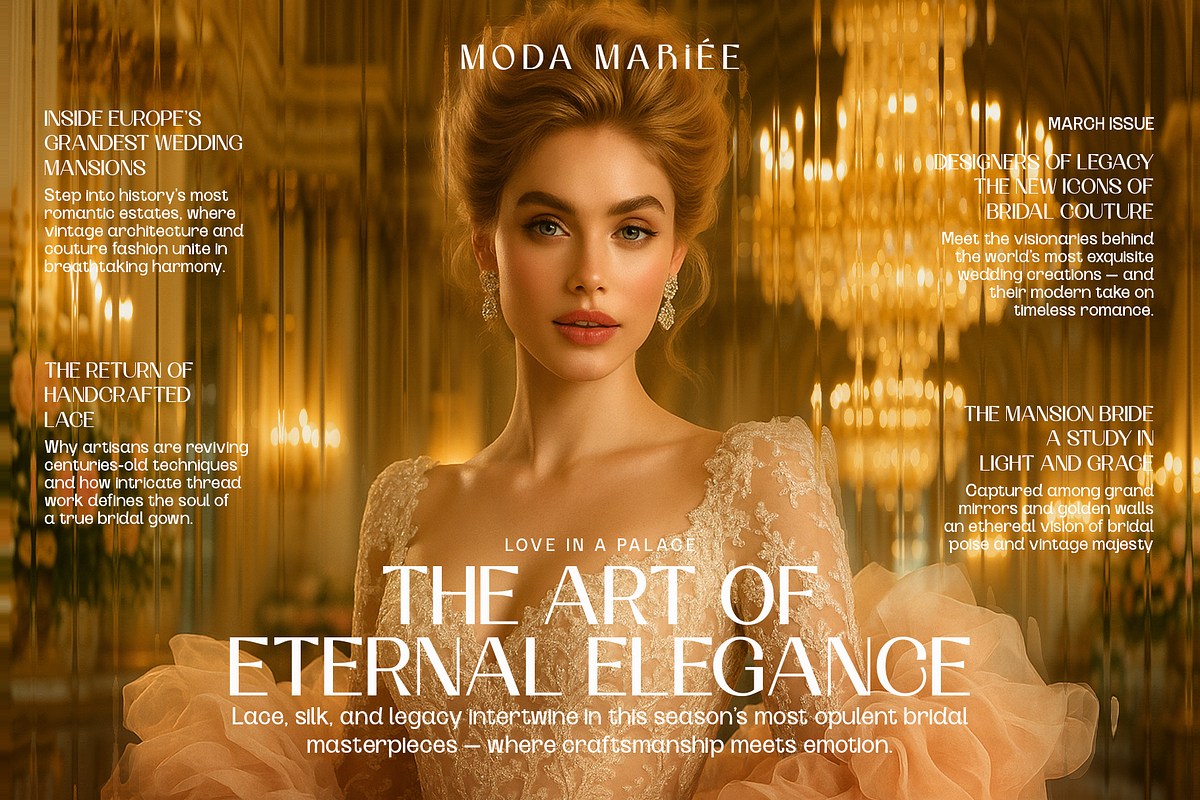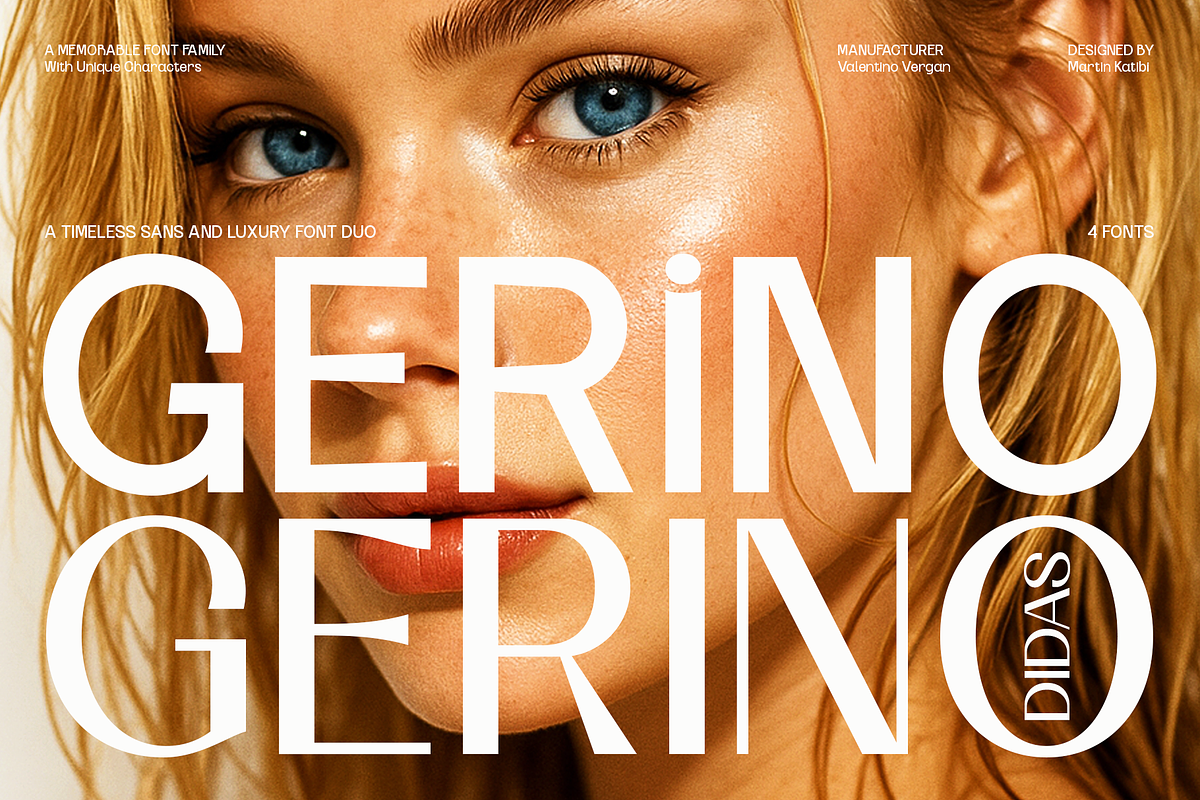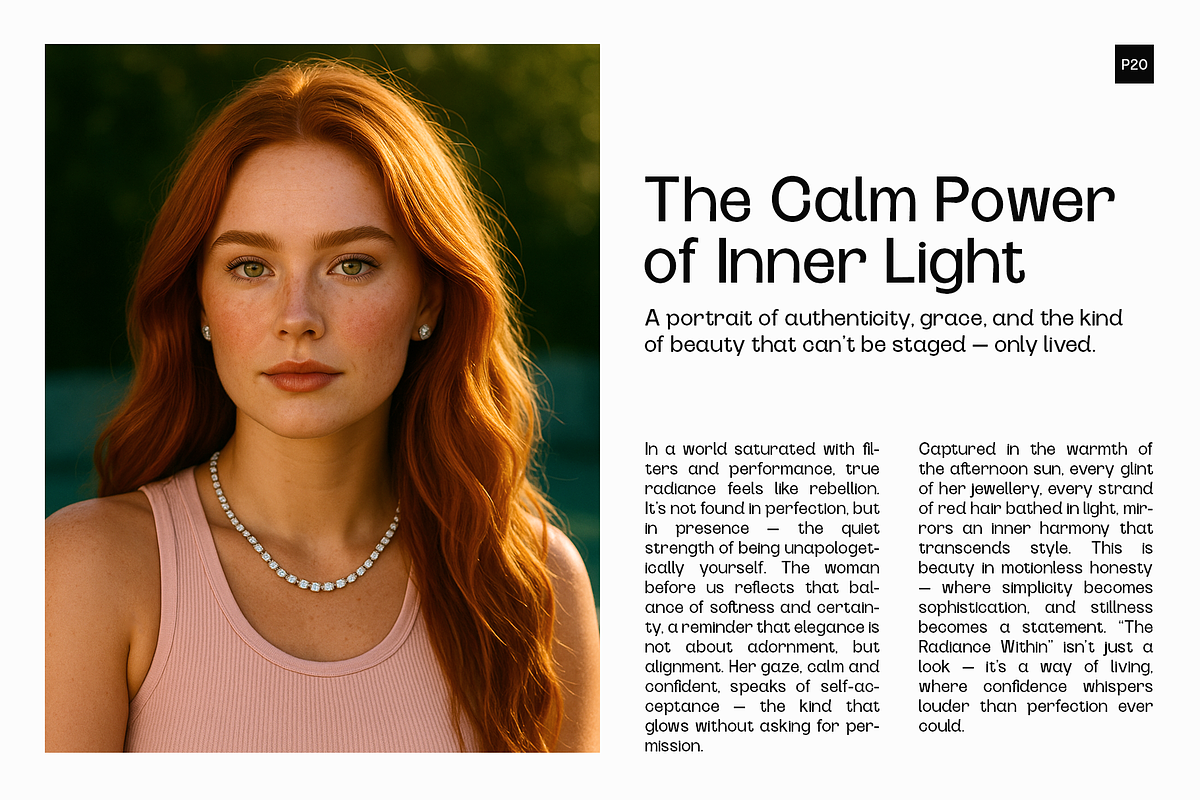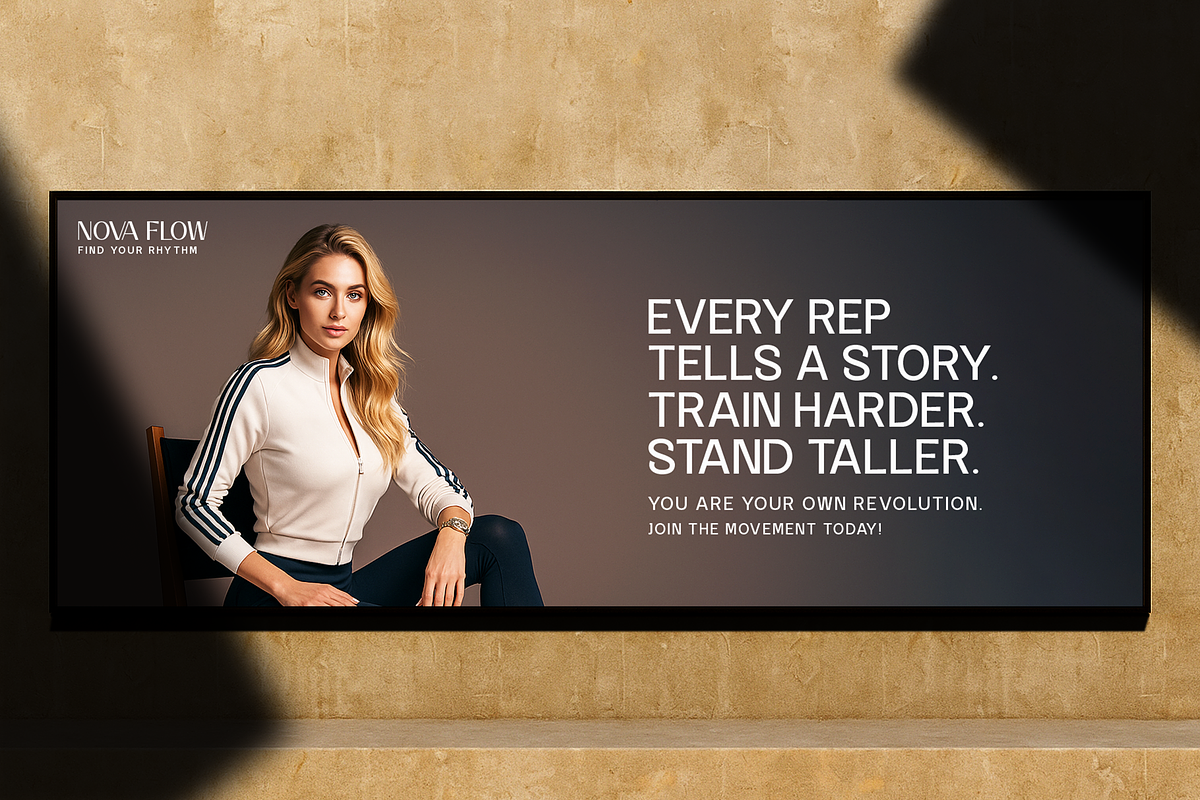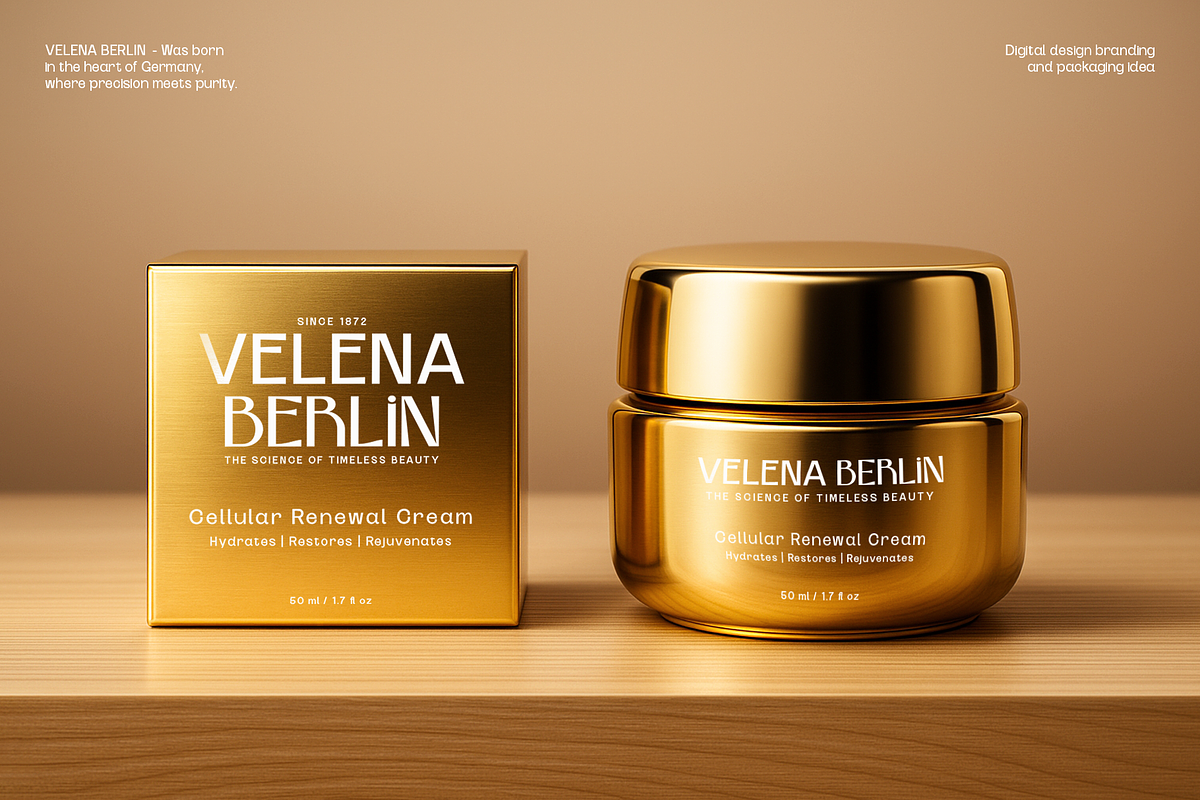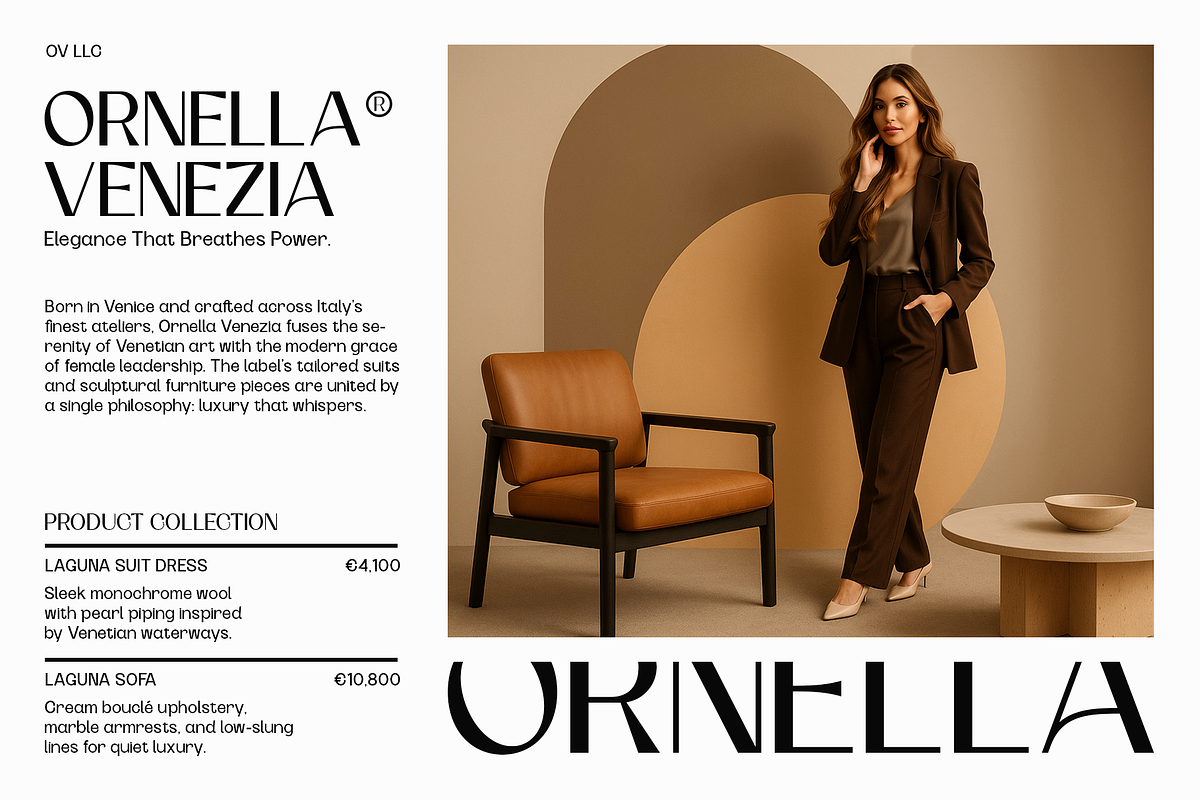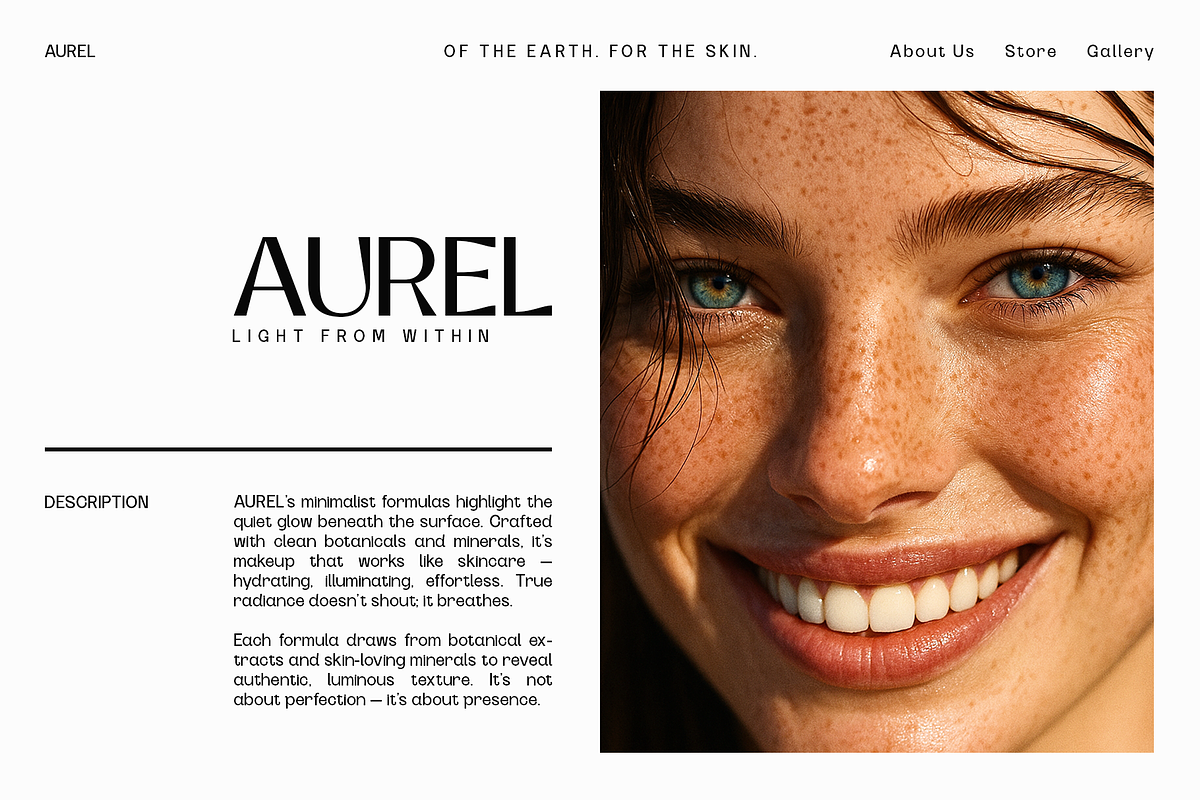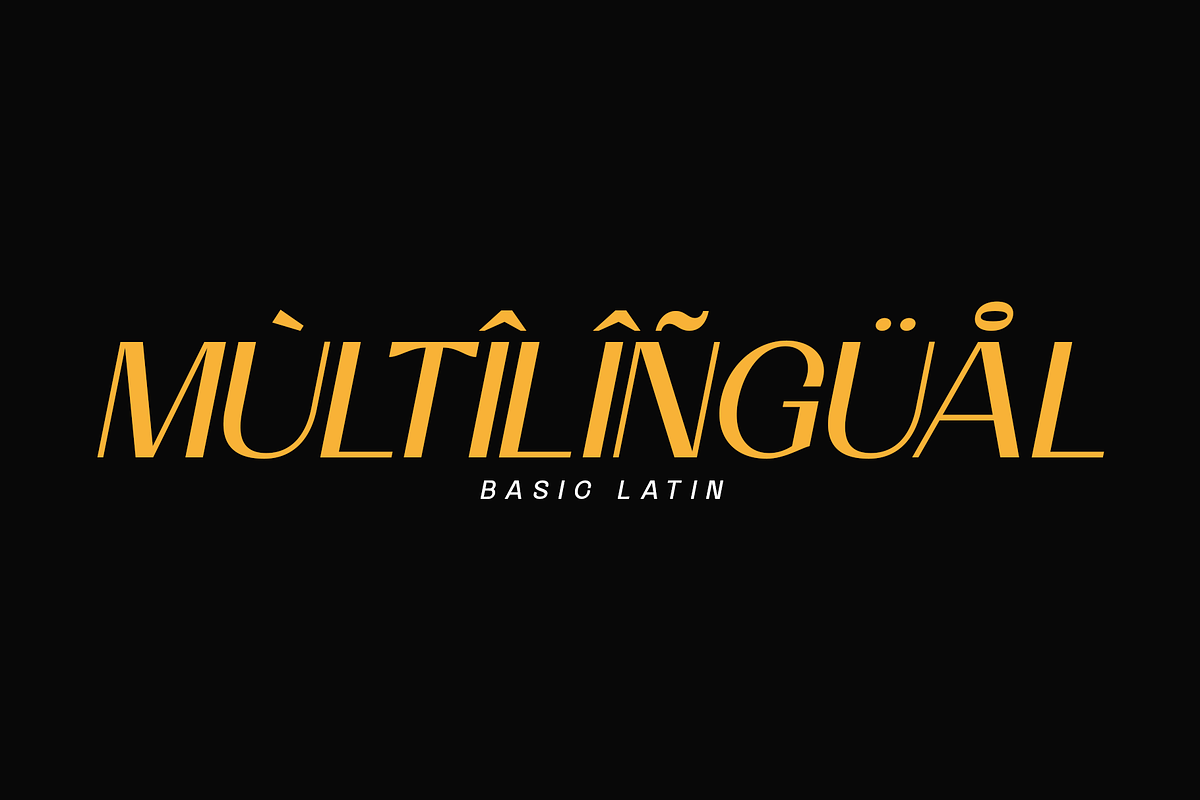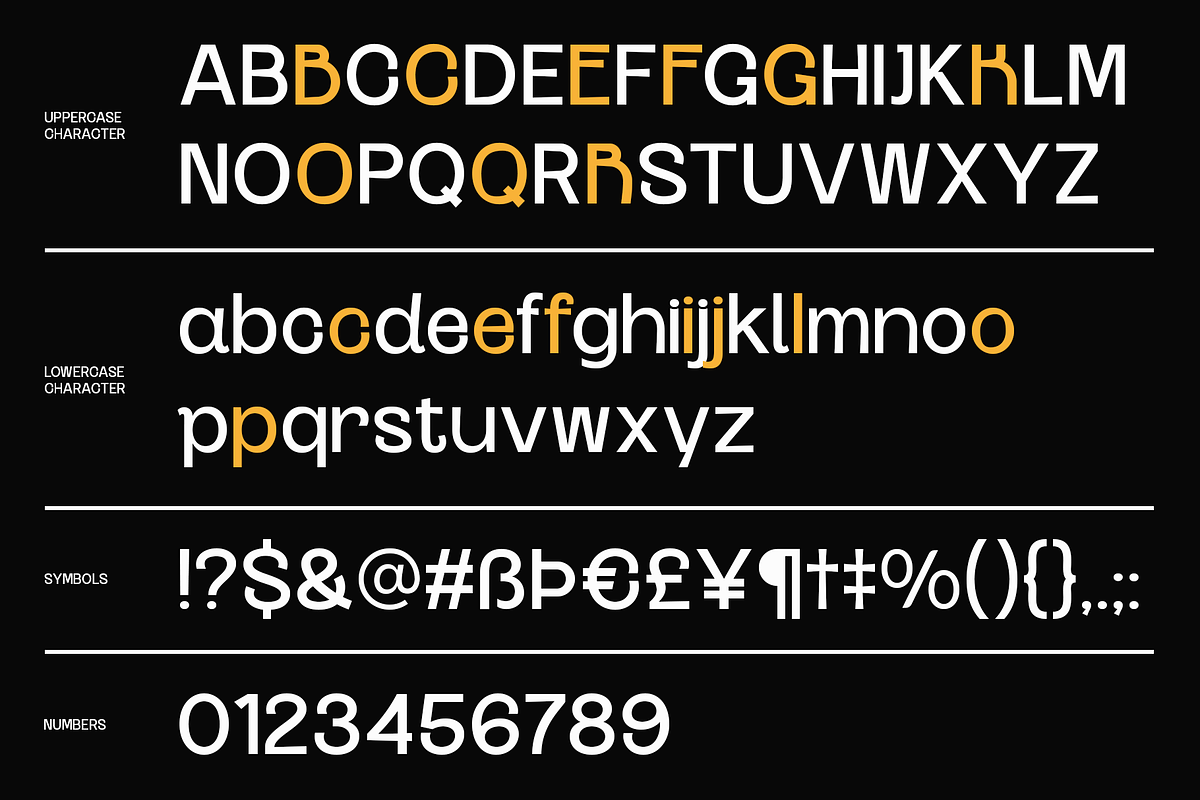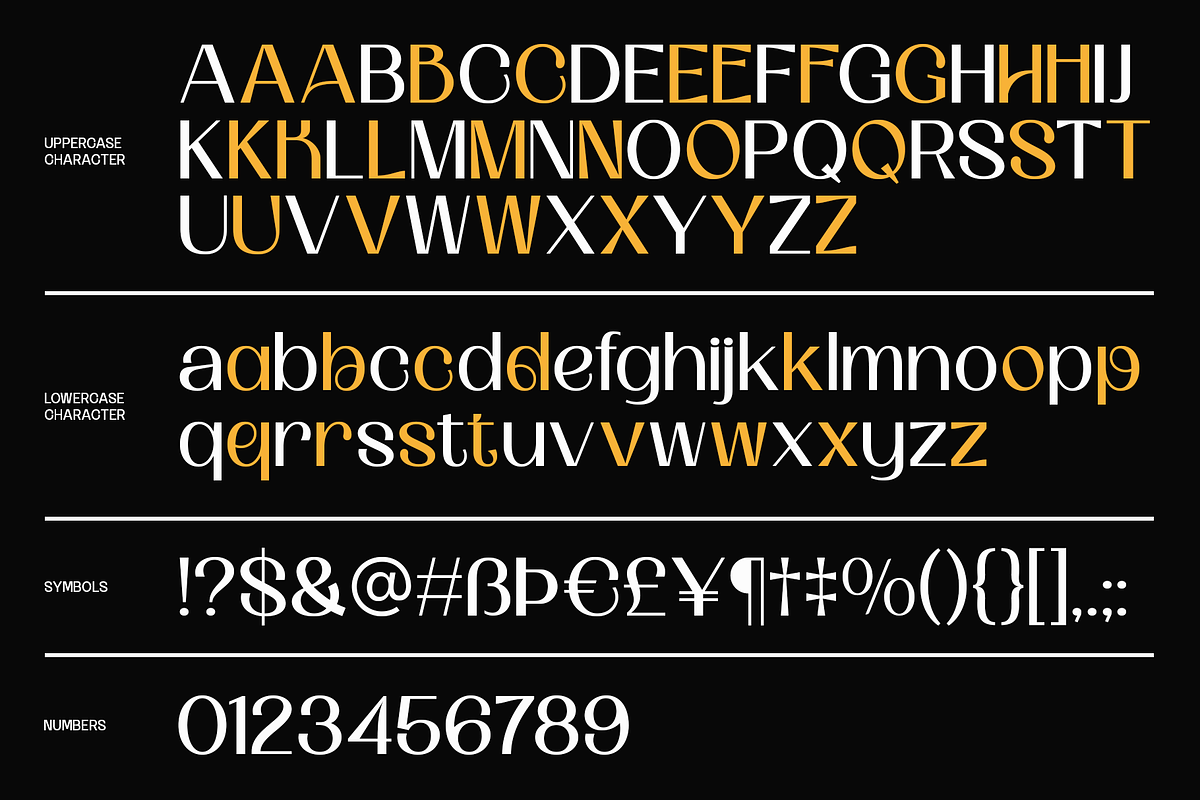
Gerino - Modern Editorial Duo
Meet Gerino & Gerino Didas — two contemporary sans-serif typefaces that celebrate the beauty of clarity, character, and creative expression. Designed for modern brands and design studios, this duo brings warmth to geometry and personality to precision.
Gerino is modern yet playful — a confident sans with subtle quirks that make every word feel alive. Its clean structure and friendly rhythm make it perfect for standout logos, lifestyle brands, packaging, and editorial design.
Gerino Didas refines the classic high-contrast style into a sleek sans-serif form. Sophisticated and balanced, it radiates quiet confidence — ideal for fashion campaigns, magazines, and luxury branding.
Together, they form a harmonious pair that feels timeless, expressive, and beautifully versatile. Each family includes a wide range of alternate characters for effortless customization and creative variation.
- Two complete families: Gerino & Gerino Didas
- Regular and Oblique styles
- A generous selection of alternates
- Designed for both print and digital use
BEST FOR:
- Branding & Visual Identity
- Editorial & Magazine Design
- Fashion & Luxury Campaigns
- Packaging & Product Design
- Digital & Web Typography
Gerino & Gerino Didas — crafted for designers who see type as design itself.
Bring warmth, contrast, and confidence to your next project.